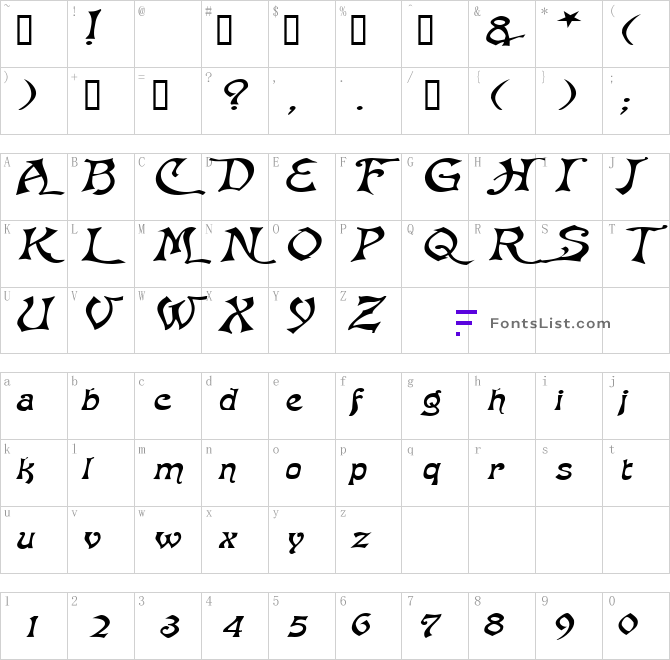
- Font Name:BaphometExtended
BaphometExtended-Italic.ttf is a very beautiful artistic font, BaphometExtended-Italic.ttf is widely used in the design and printing of various books and pictures,BaphometExtended-Italic.ttf has a strong visual impact,BaphometExtended-Italic.ttf is a commonly used font in newspapers, magazines and books, and is used in posters, e-commerce Poster design, store design, logo design, font design and other fields.BaphometExtended-Italic.